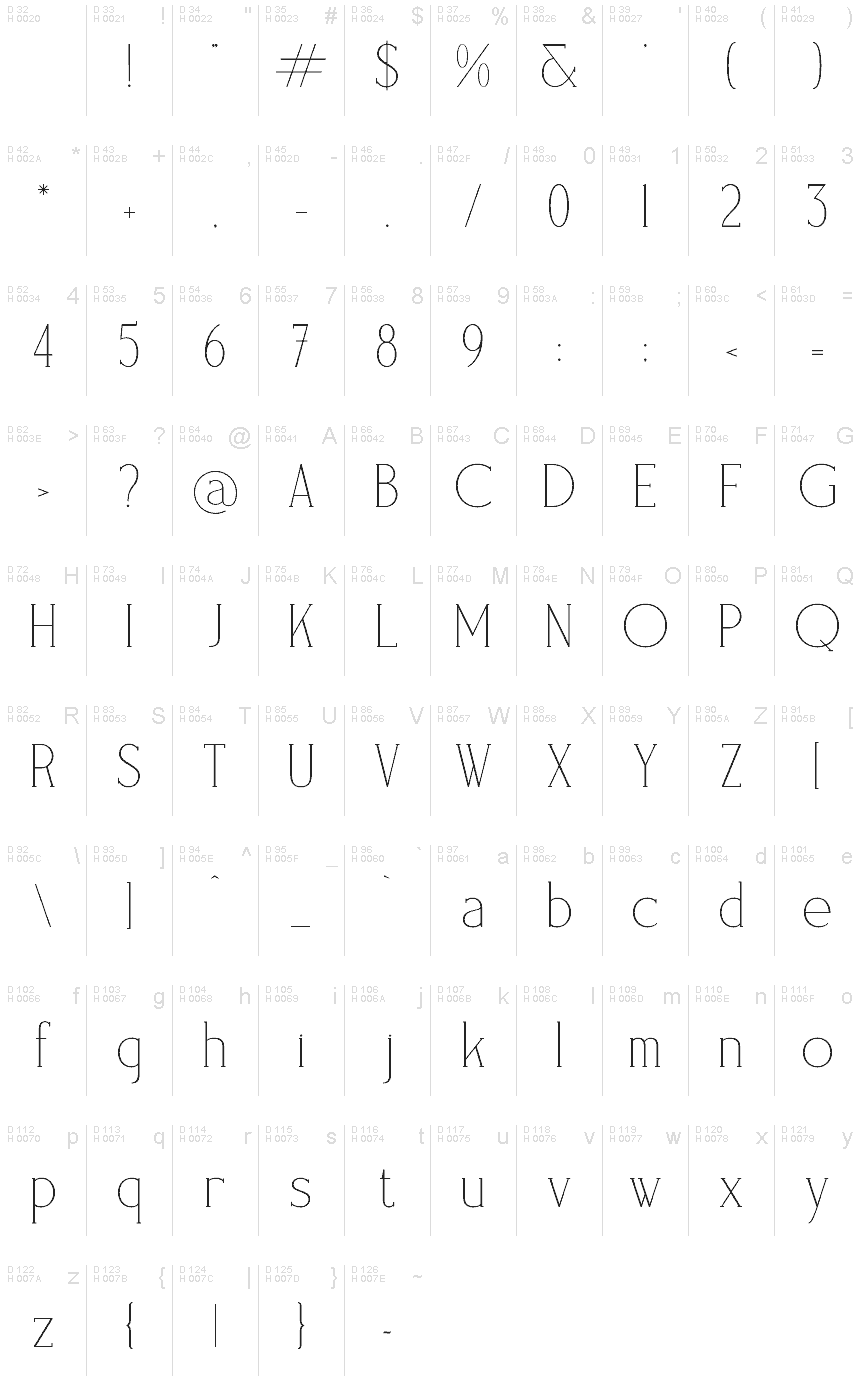
Rampwind
Rampwind font by Storytype Studio evokes elegance through a minimalist, refined appearance. This light, condensed serif font has an open structure that captures a modern aesthetic suitable for the 21st century. Thanks to its bold design and stunning details, each letter appears to be decorated with royal ornamentation for all sorts of graphic projects.